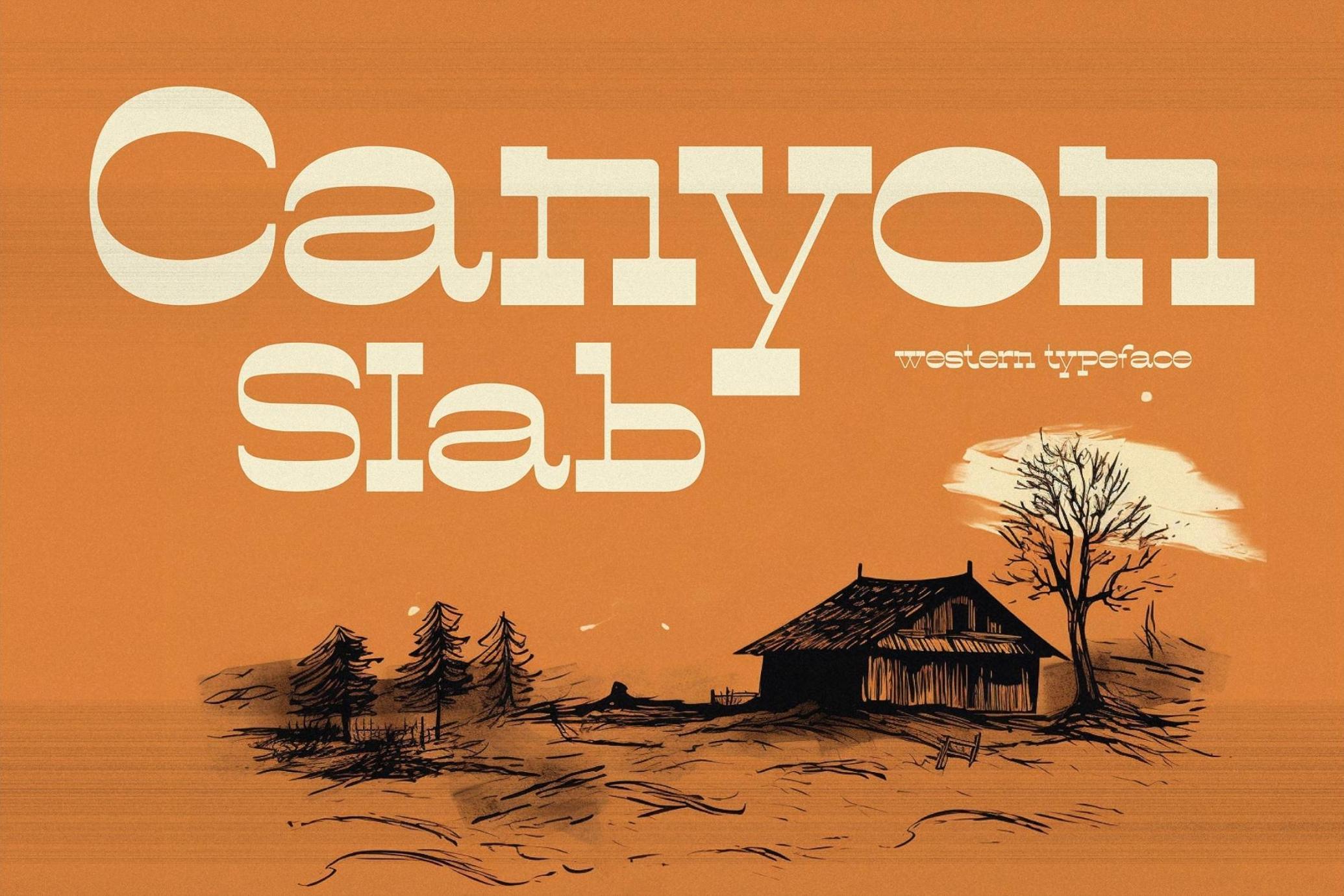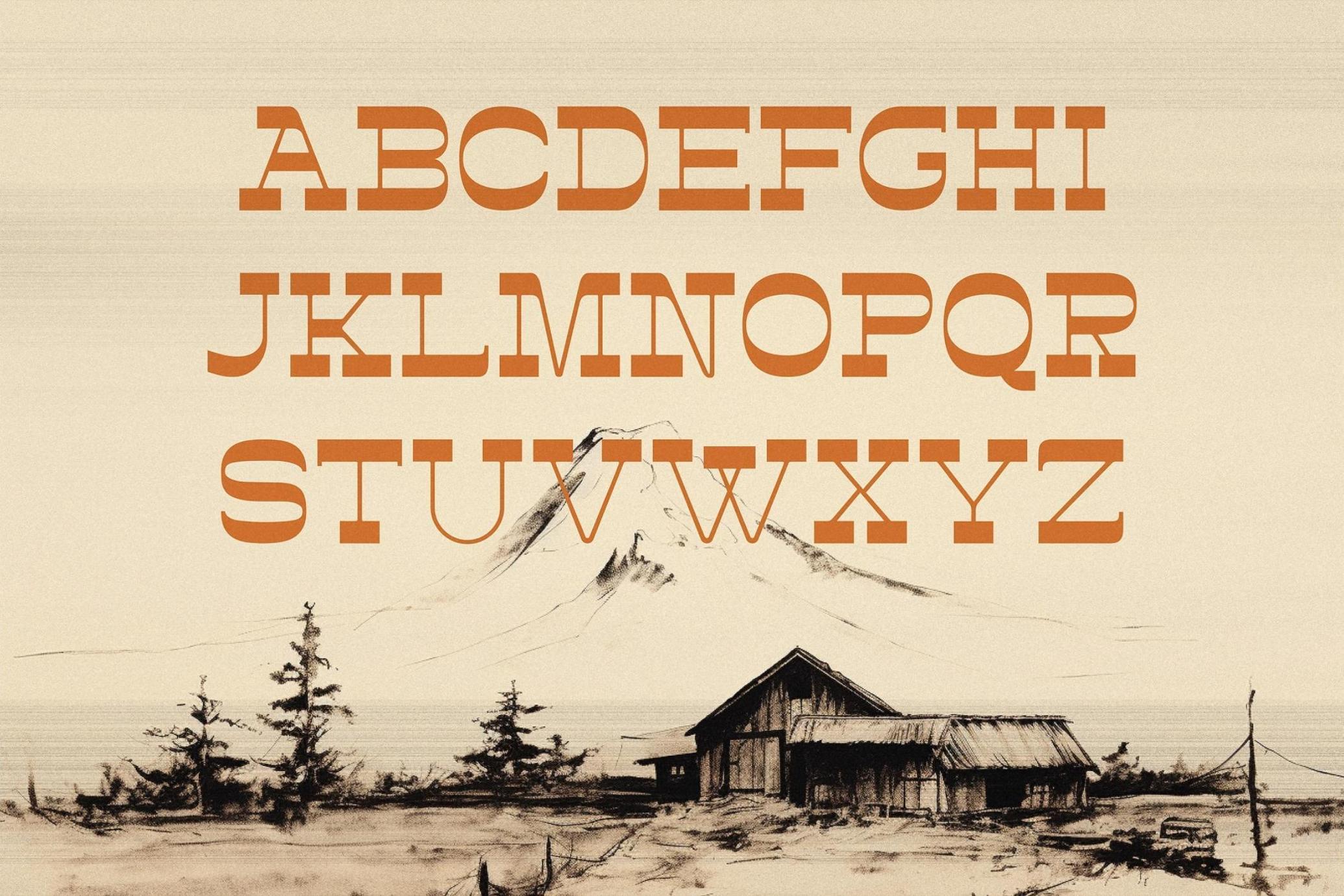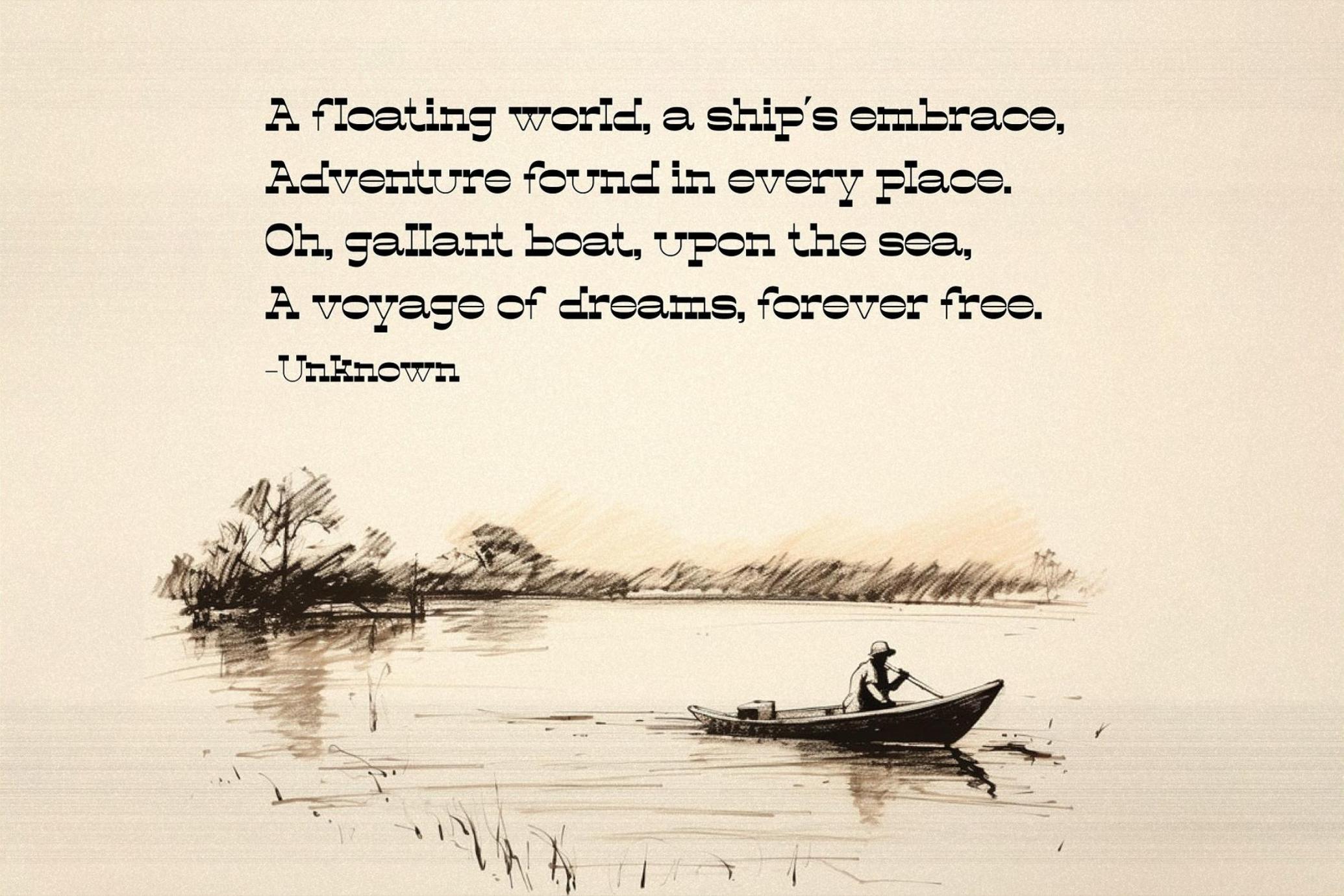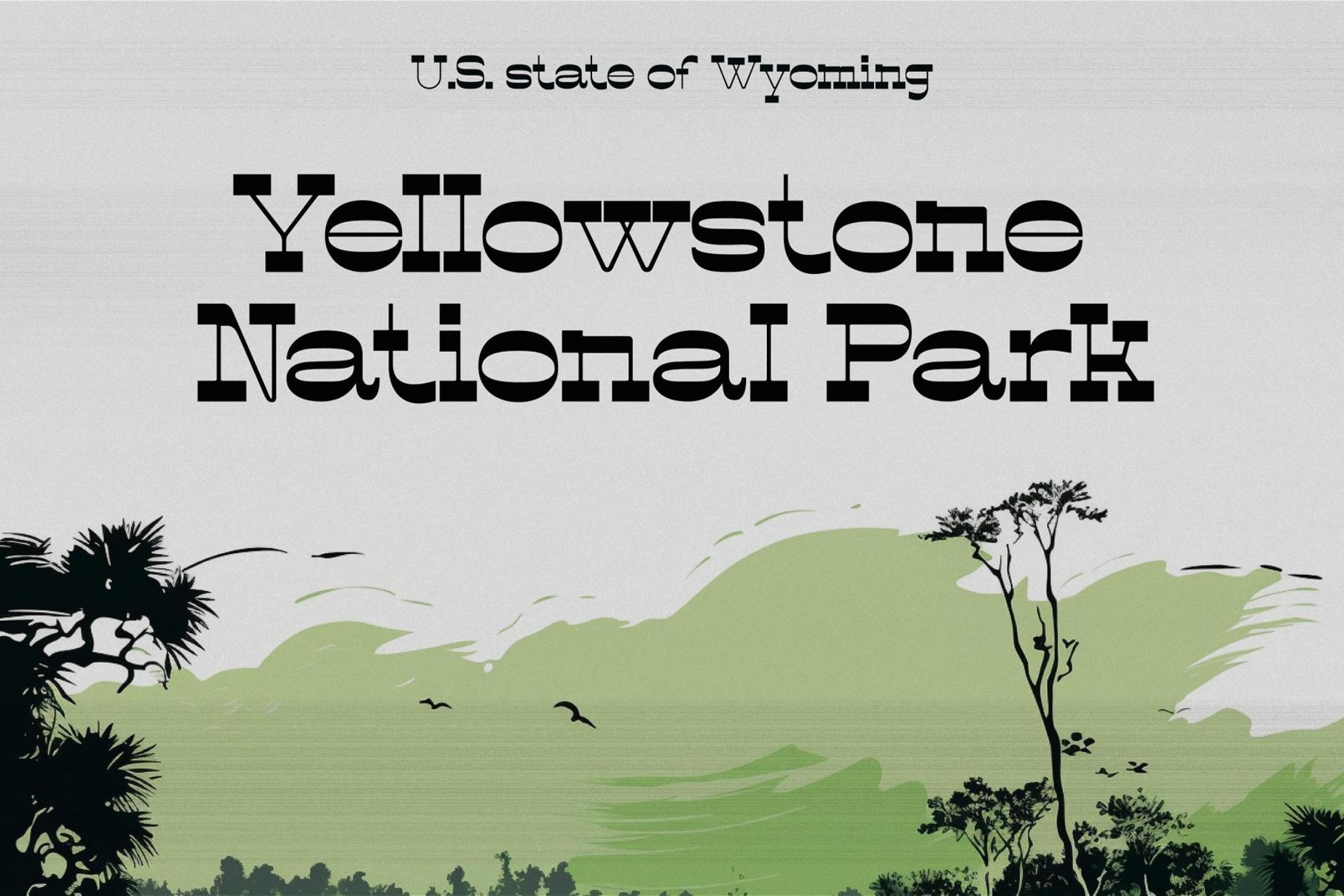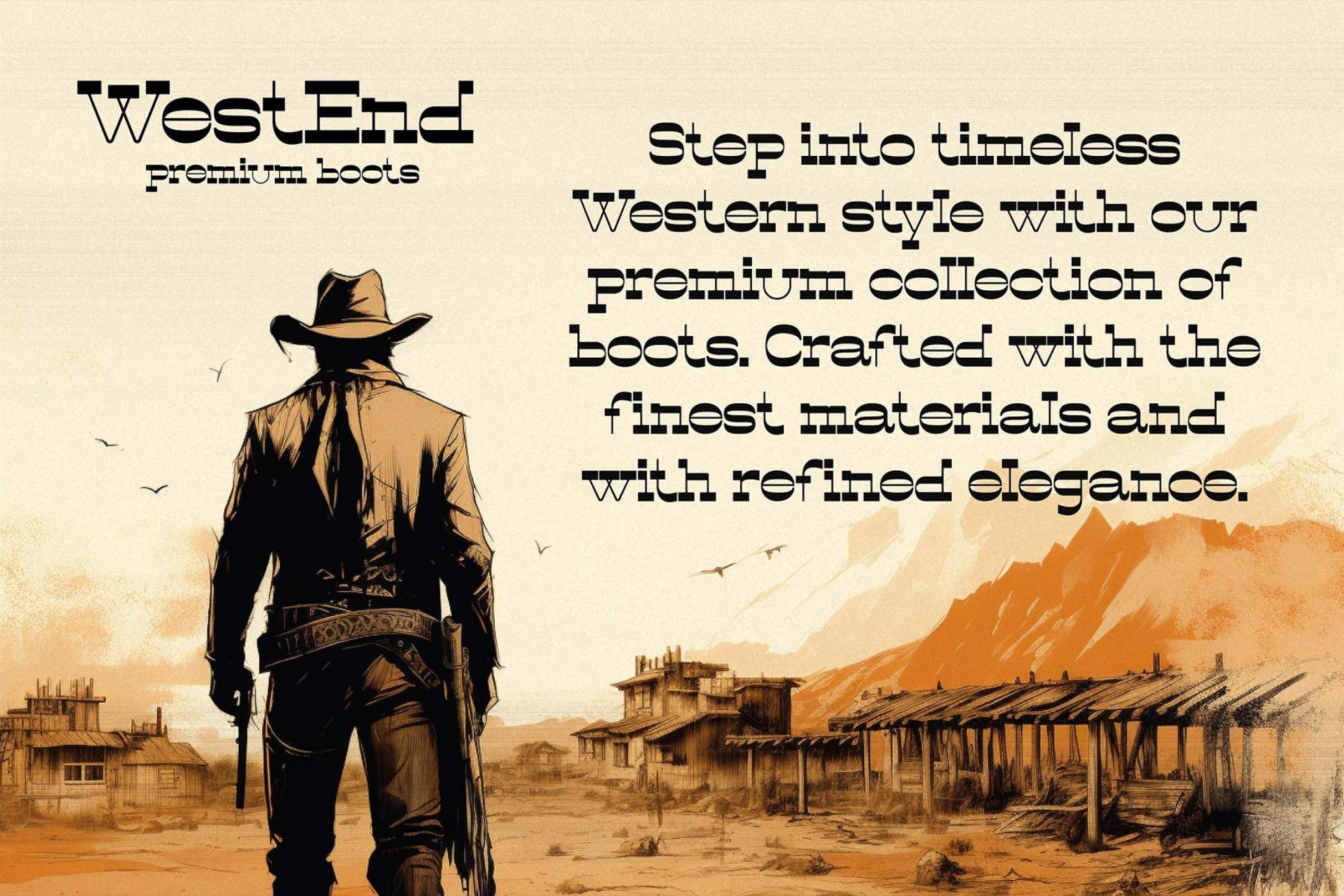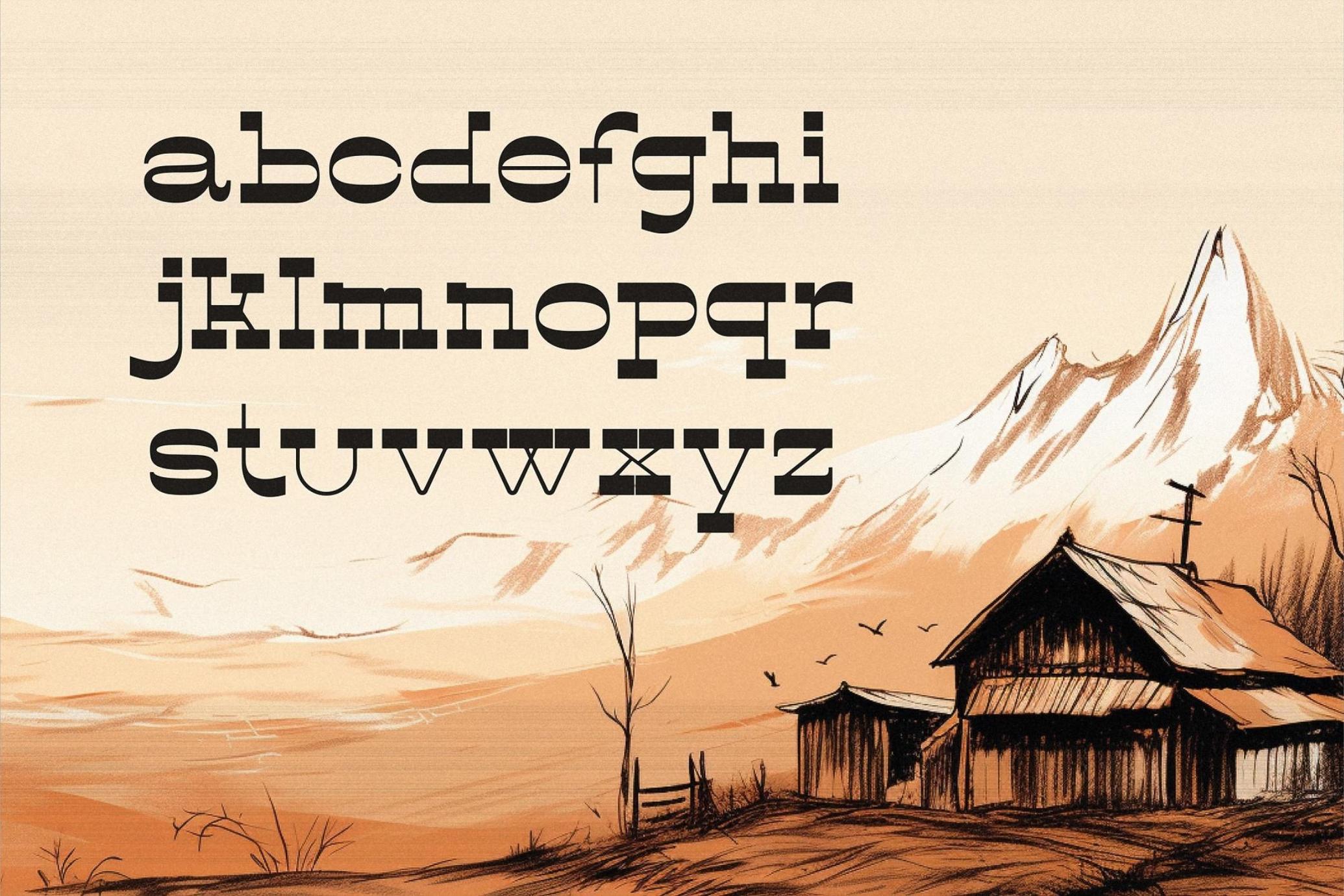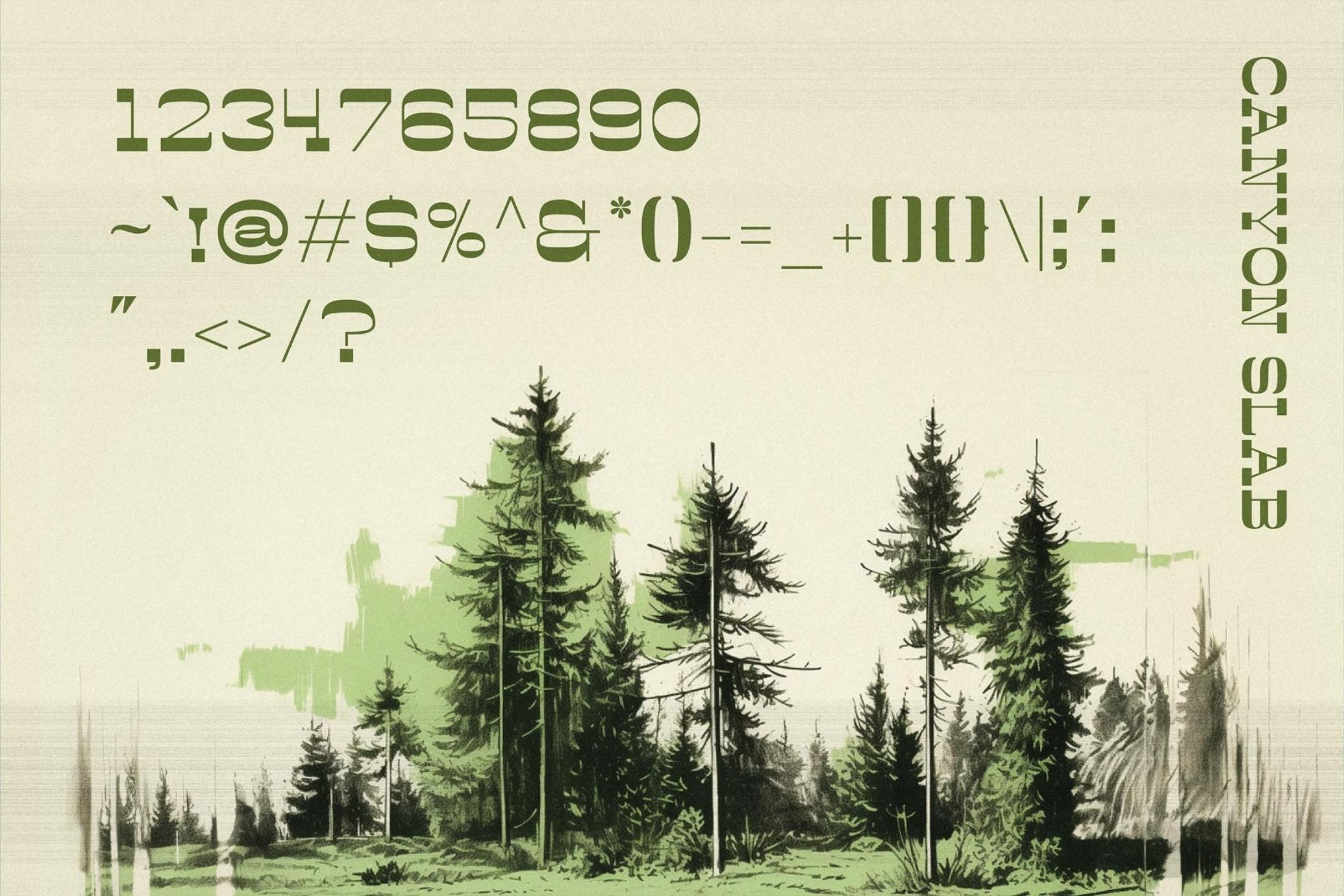
Canyon Slab - Wild West Typeface
Saddle up and venture into uncharted typographic territory with Canyon Slab, a wild west-inspired serif slab typeface that beckons you to explore the untamed frontiers of design.
Like the rugged canyons that have withstood the test of time, this font's bold serifs and sturdy letterforms exude a sense of strength and adventure. Canyon Slab captures the spirit of the old west, where legends were born and tales of grit and determination echoed through the canyons.
As you wield this powerful typeface, you'll feel the dust of the trail beneath your feet, hear the echo of revolvers in the air, and taste the thrill of unbridled exploration. Channel the untamed spirit of the wild west with Canyon Slab, and let your designs ride into the sunset of creativity.